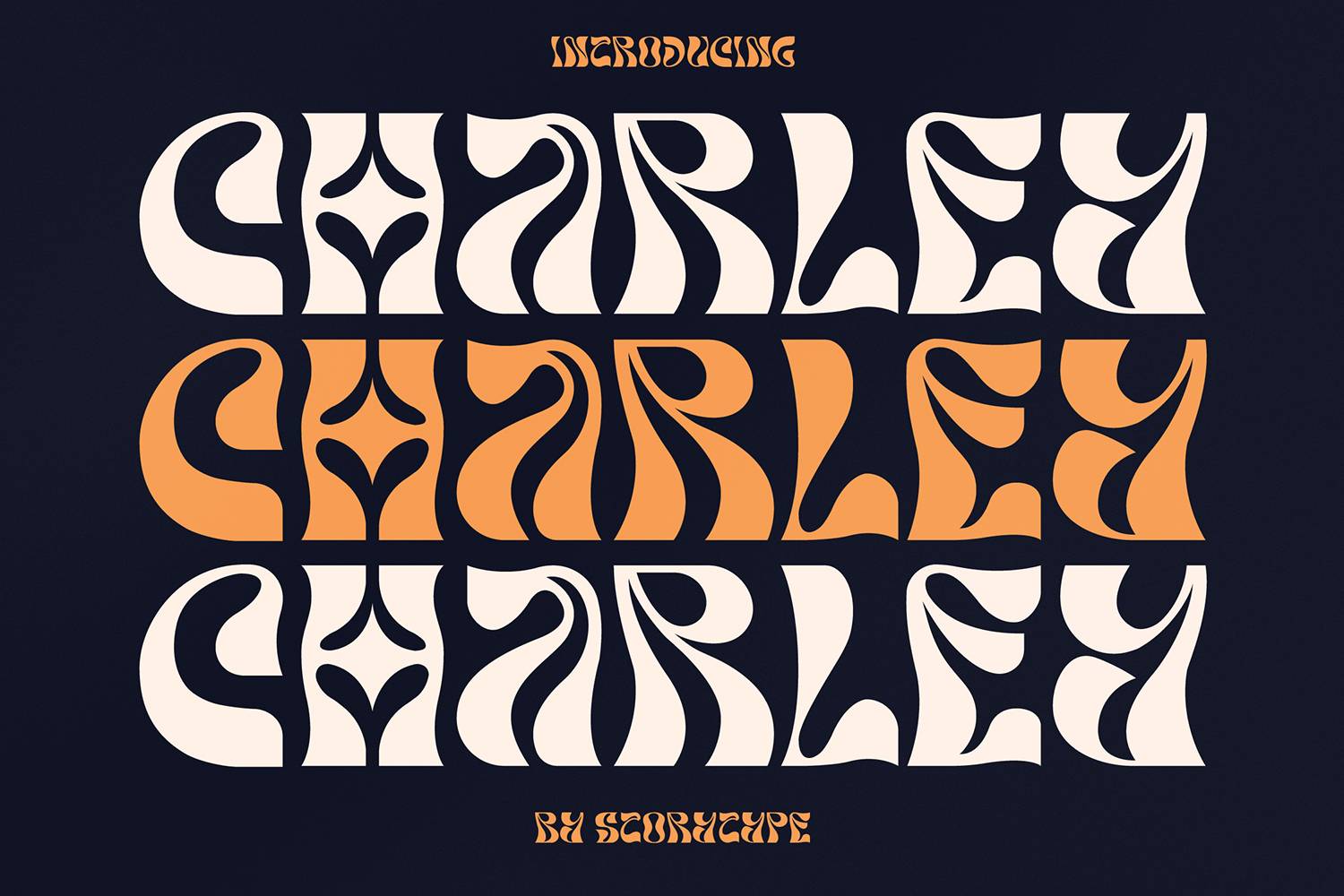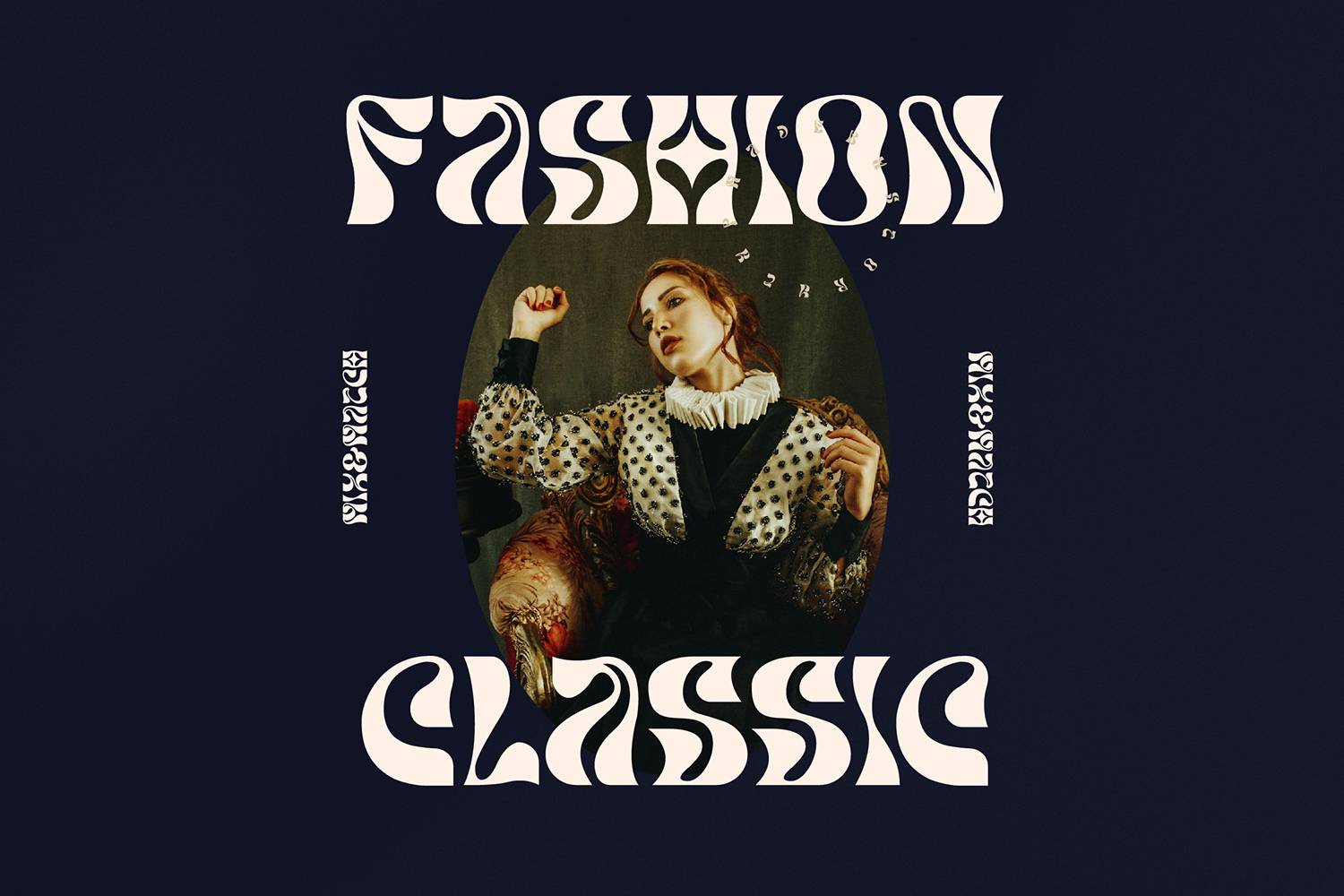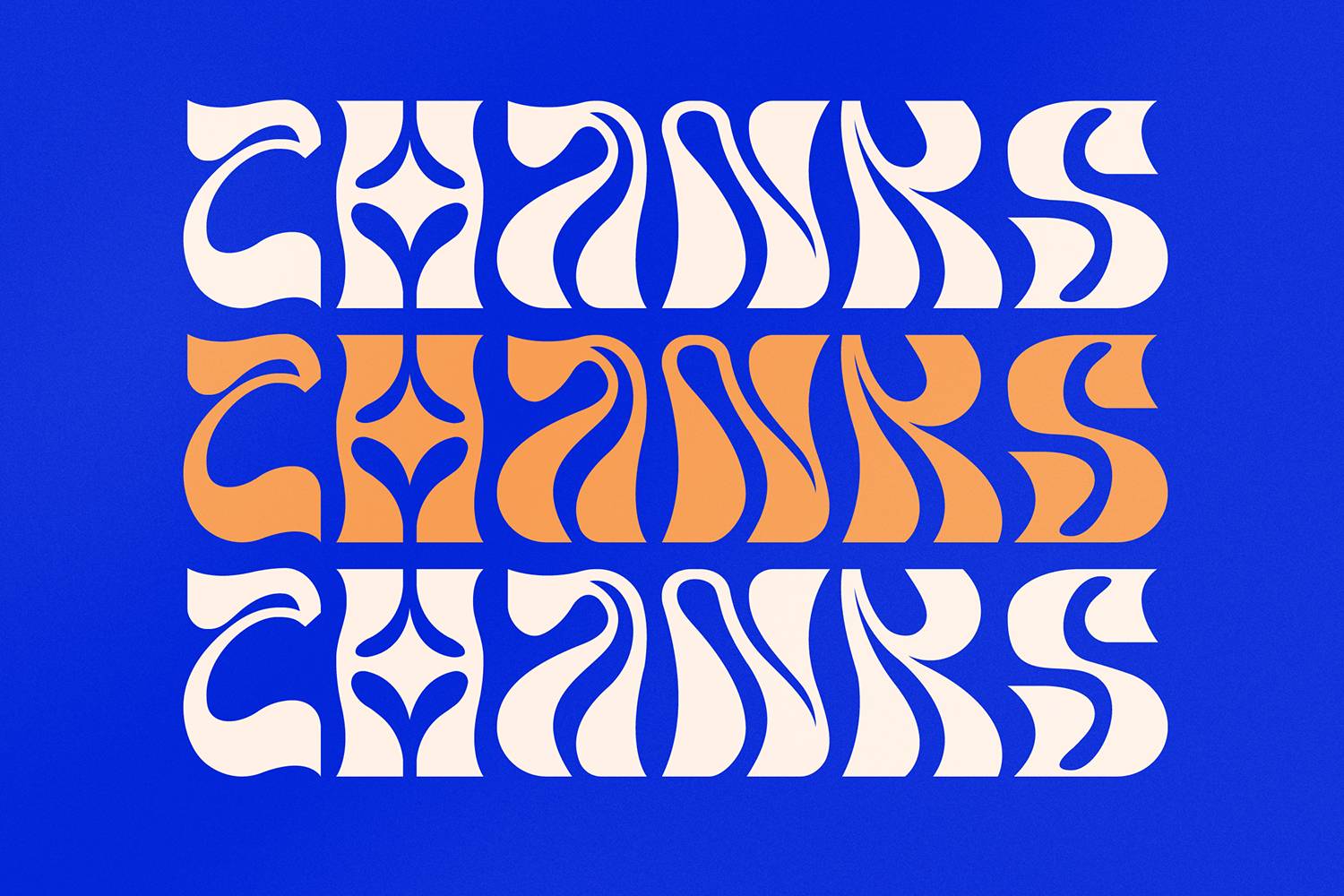
Charley Font is a bold, decorative serif typeface with a striking psychedelic and retro vibe, featuring thick, curvy strokes with dramatic contrast and stylized, almost floral shapes in its letterforms. Its unique, artistic design makes it perfect for eye-catching headlines, logos, posters, or branding that seeks to convey creativity and vintage flair. Due to its elaborate style, it works best in display contexts where it can shine without compromising readability.
Charley Font
About Charley Font